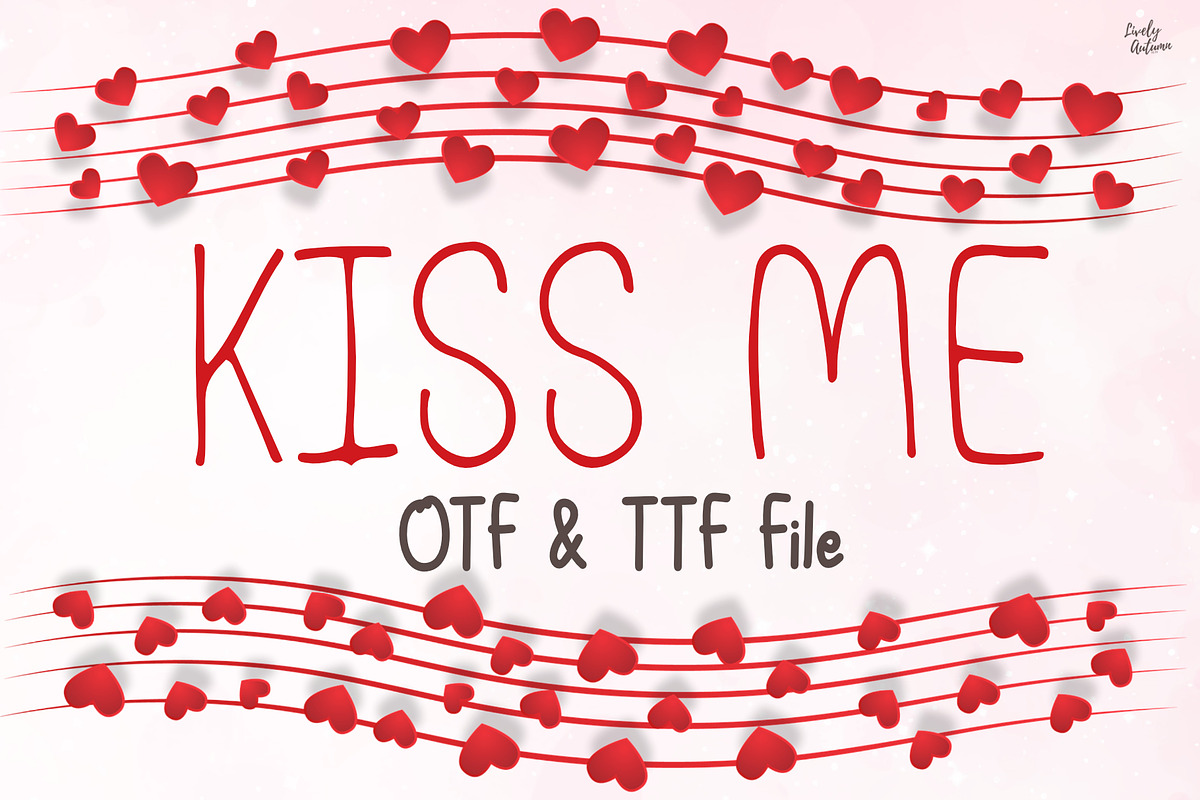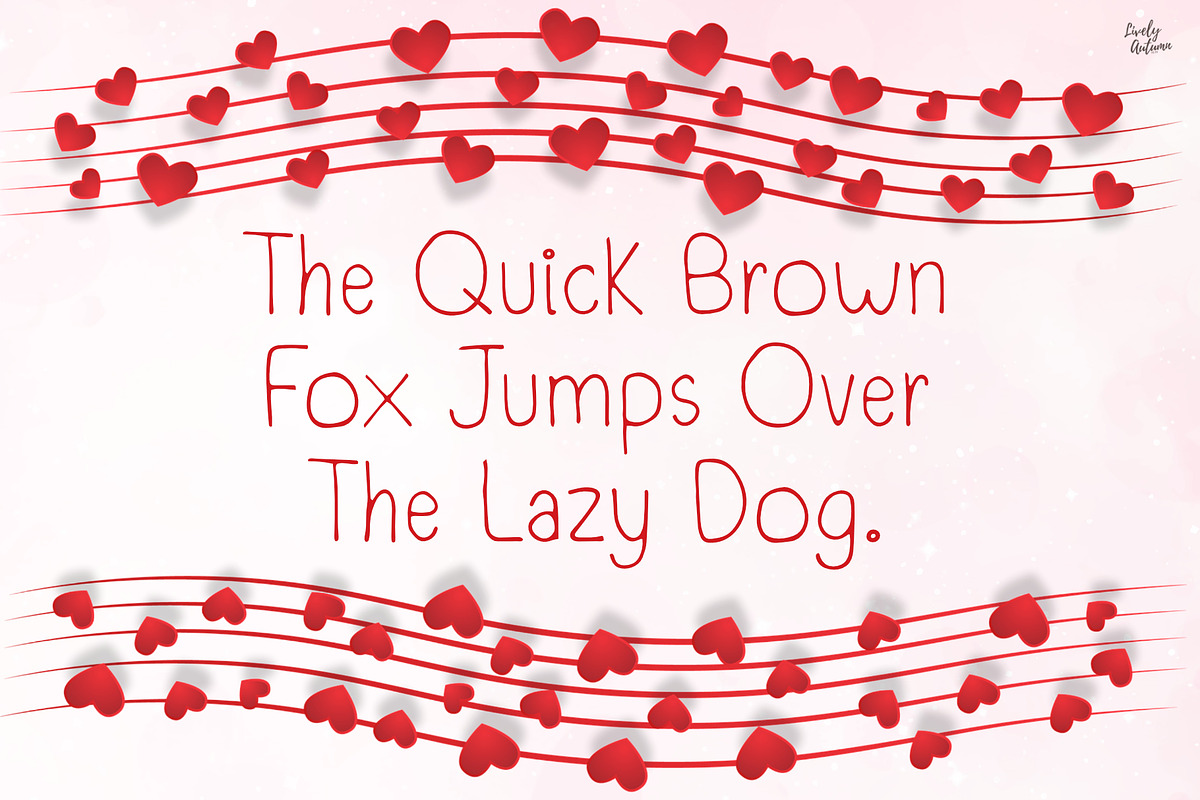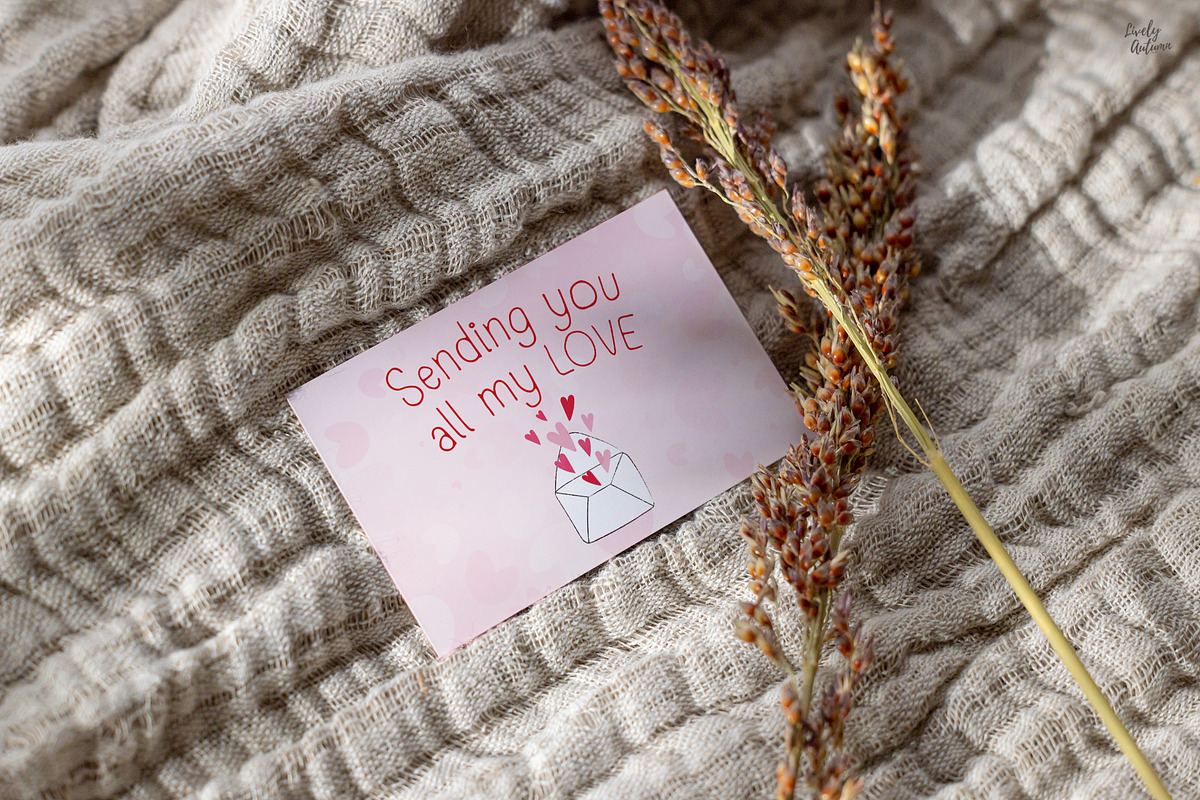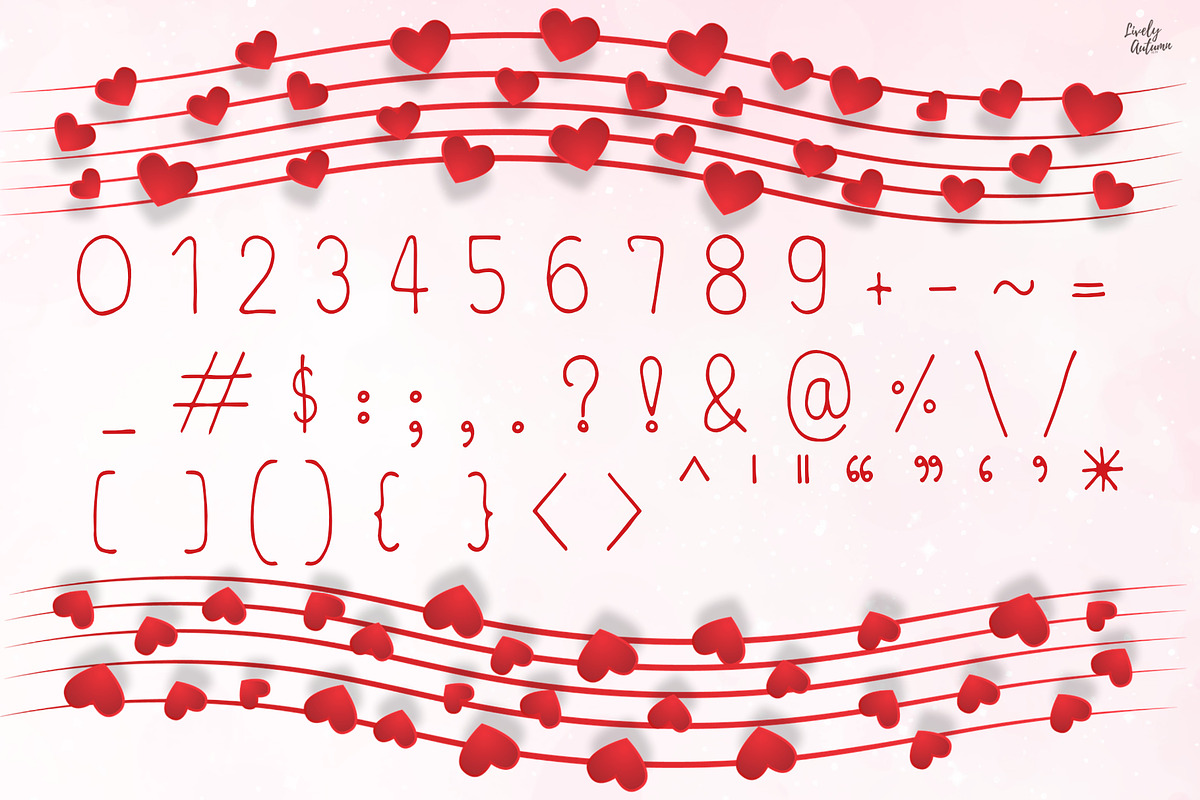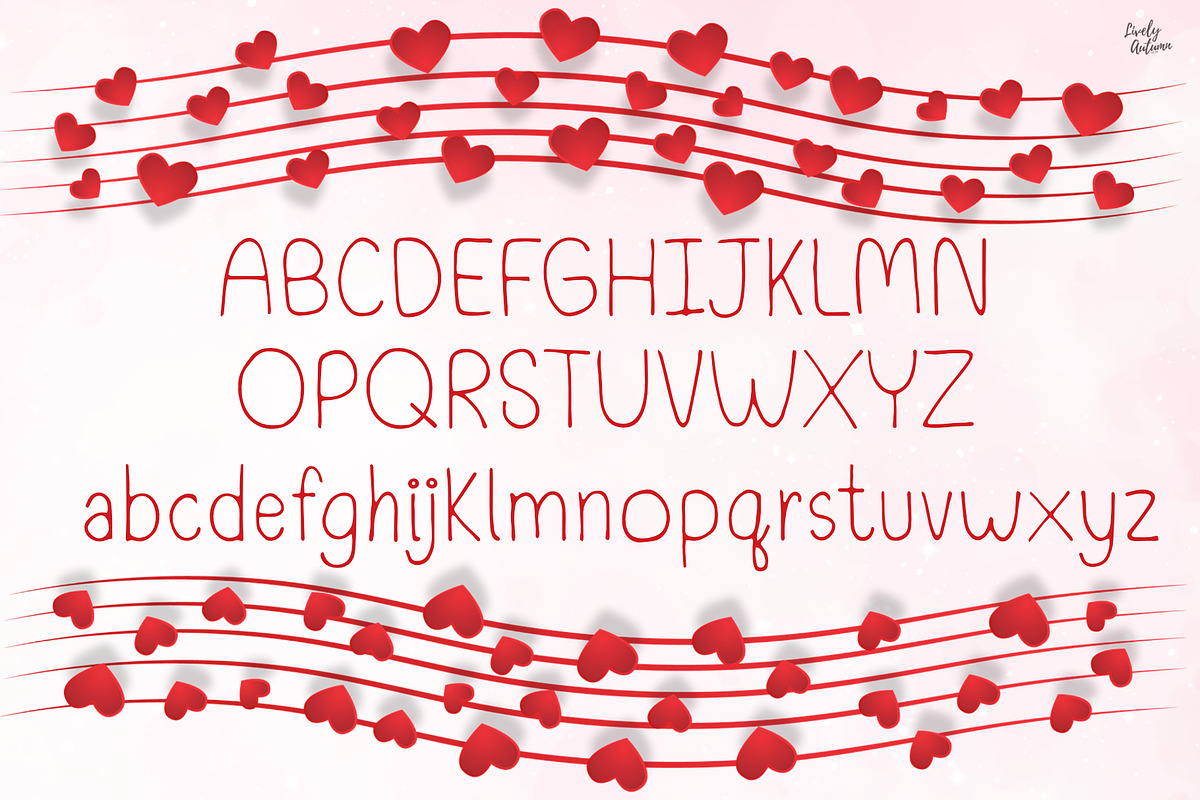
Kiss Me | Handwriting Font
Kiss Me Font is a sans serif handwriting font. Perfect for your personal projects, Valentine projects and various project. From invitations to posters, social media graphics, journals, greeting cards, and much more.
- Font includes: uppercase, lowercase, numbers, and punctuation